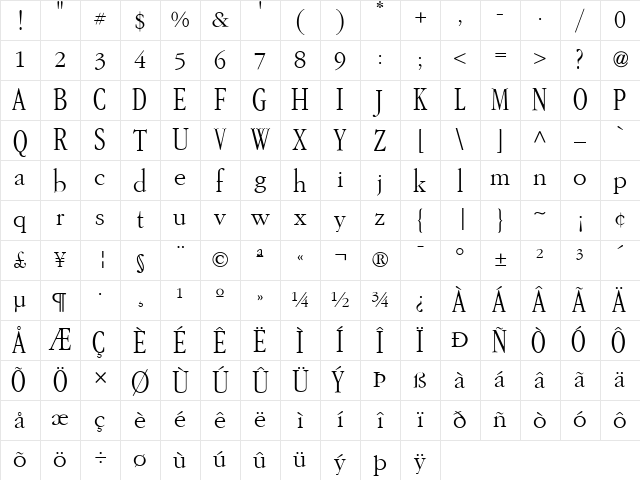
Gar-A-MondTall Light Free Font
Gar-A-MondTall Light
Design Context for Gar-A-MondTall
Gar-A-MondTall is a composed and adaptable typeface that performs quietly and consistently across a wide range of design contexts. Its slender proportions lend an understated elegance to any composition.